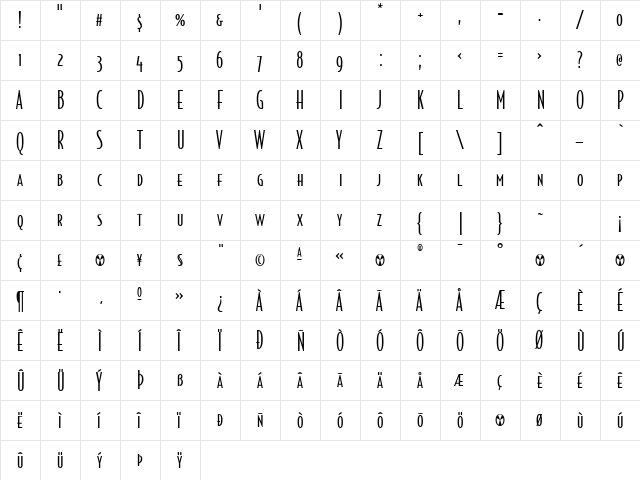
BodegaSans LightSmallcaps
Design Context for BodegaSans Typeface
BodegaSans is a composed and adaptable typeface that performs quietly and consistently across a wide range of design contexts. Its slender proportions lend an understated elegance to any composition.